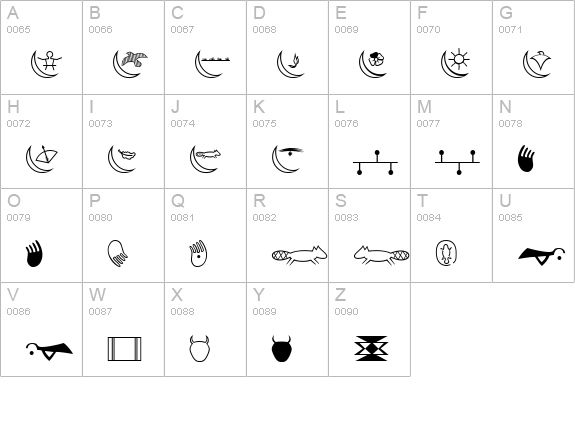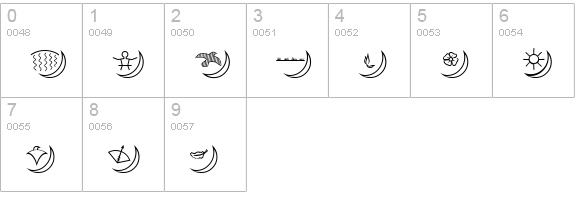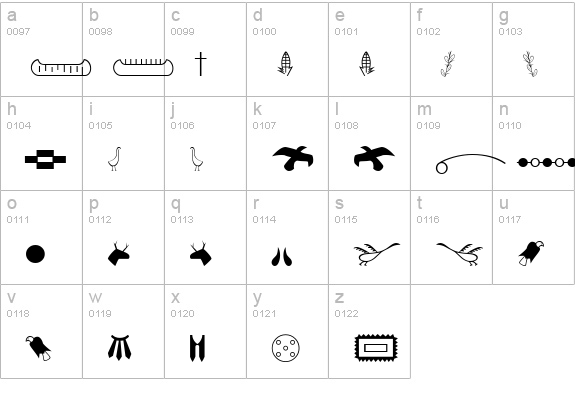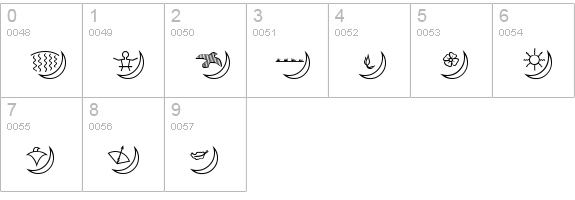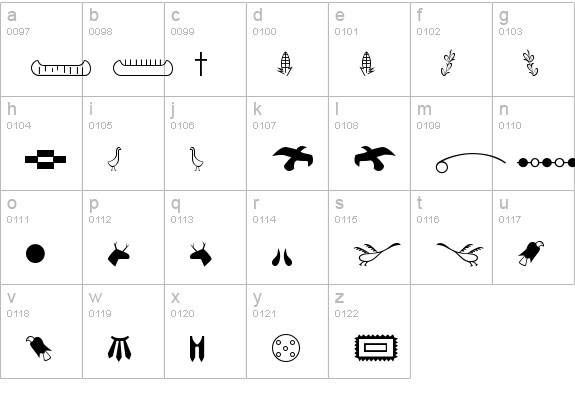
American Indian Font Details
The American Indian font captures the essence of Native American culture and heritage with its intricate and symbolic design. This beautifully crafted font pays homage to the rich traditions and history of American Indian tribes, making it a perfect choice for projects that seek to honor and celebrate indigenous peoples. The fluid lines and unique glyphs of the American Indian font evoke a sense of connection to the natural world and the wisdom of ancient civilizations. What makes the American Indian font even more special is that it is available for free download at FontsMarket.com. This means that you can easily incorporate this culturally significant font into your designs without any cost. Whether you are working on a project that highlights indigenous issues, creating promotional materials for a Native American event, or simply want to add a touch of authenticity to your work, the American Indian font is a versatile and meaningful choice. Download it today and let the spirit of the American Indian culture inspire your creativity.